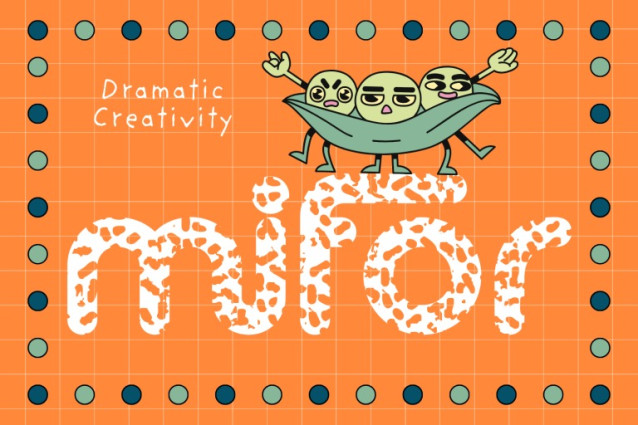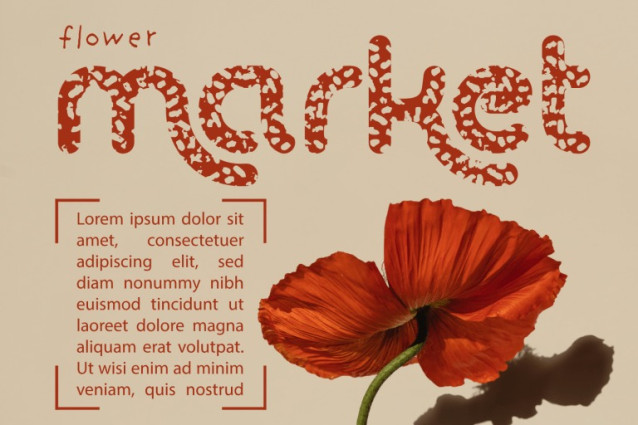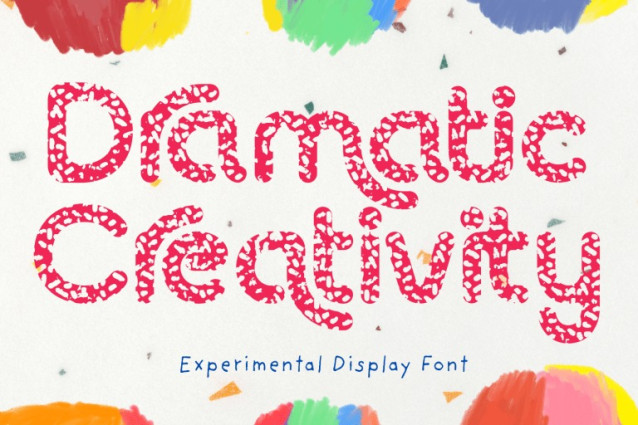
Dramatic Creativity Font
Dramatic Creativity Font – Playful Organic Font, a unique decorative display font that blends playful creativity with an organic handmade touch. With its irregular, textured letterforms that resemble cut-out patterns, this font adds a sense of fun, artistry, and spontaneity to any design project. Perfect for children’s books, creative posters, handmade product packaging, greeting cards, and artistic branding, Dramatic Creativity brings a warm and imaginative personality to your typography. The scattered, patterned texture within each glyph gives the font a dynamic and tactile feel, making it stand out from clean digital typefaces. Its rounded, friendly forms create a balance between boldness and approachability, making it suitable for both modern and retro-inspired designs.
🔤 Font Features:
✔ Uppercase & Lowercase Letters
✔ 100+ Creative Ligatures
✔ Numerals & Punctuation
✔ Accented Characters for Multilingual Support
🔤 About 100 ligatures combined with Stylistic Alternates Font: